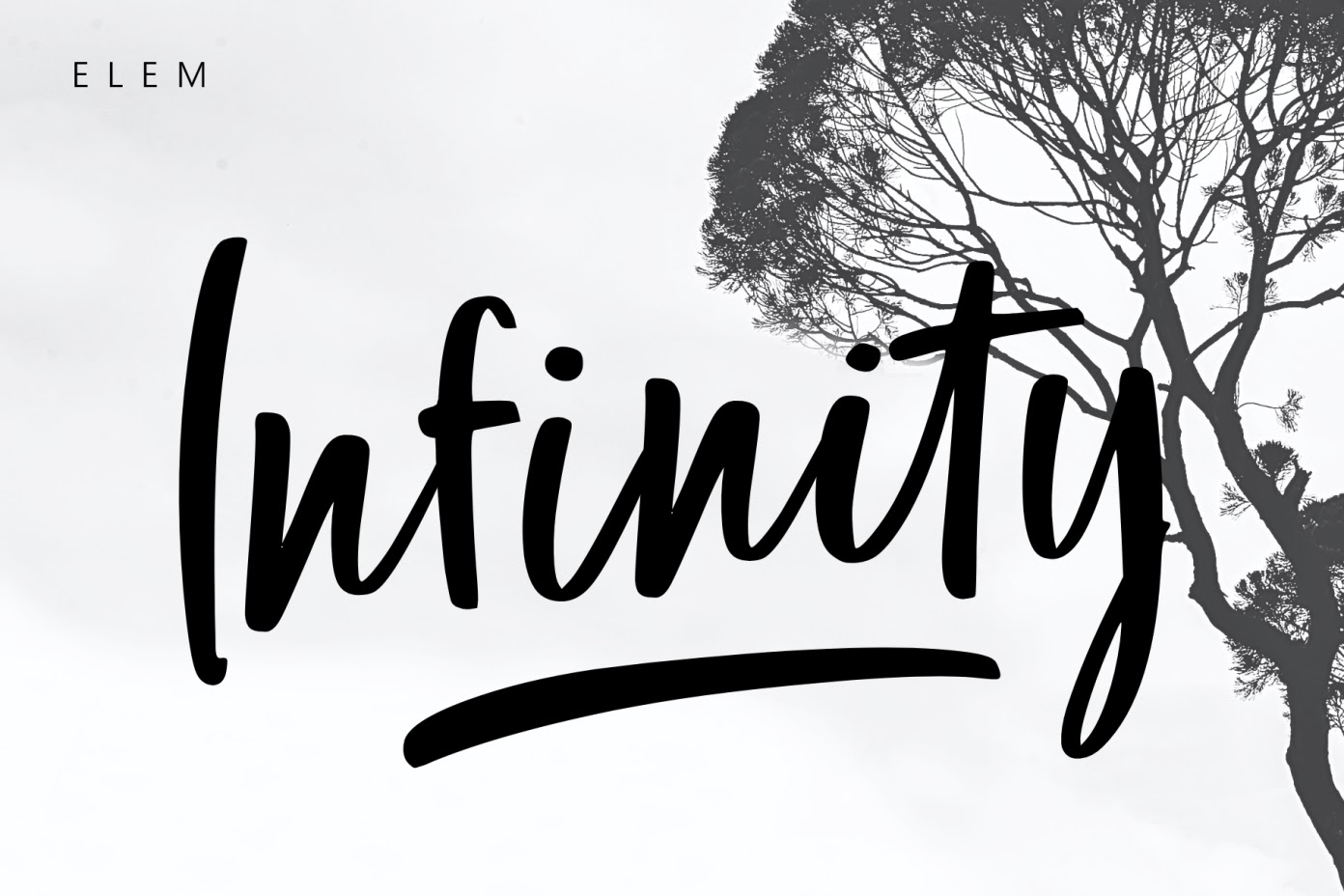
It’s a script font with a stroke style.This font is suitable for use from handwritten quotes, to product packaging, merchandise and branding projects.